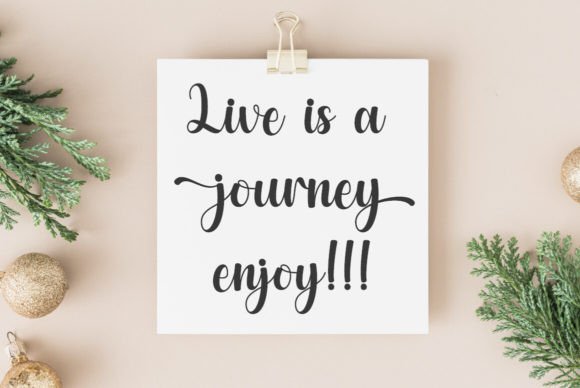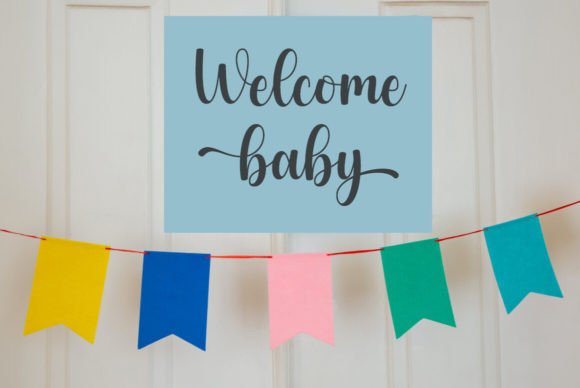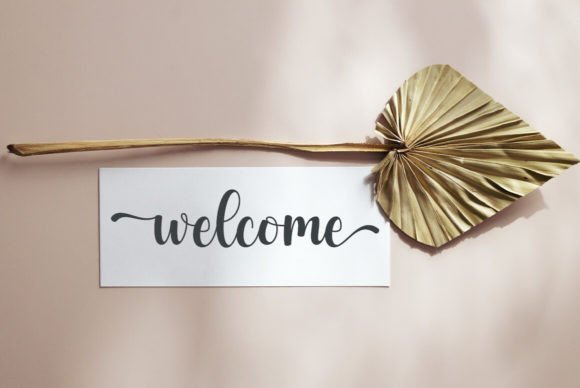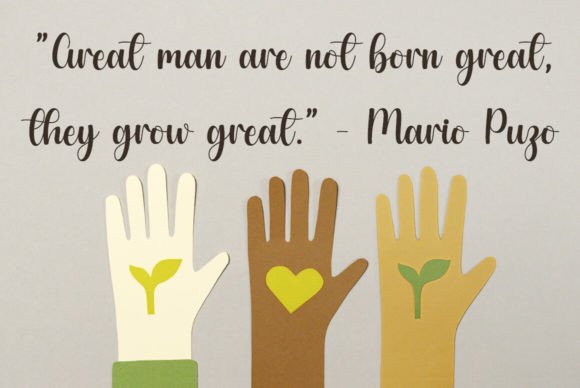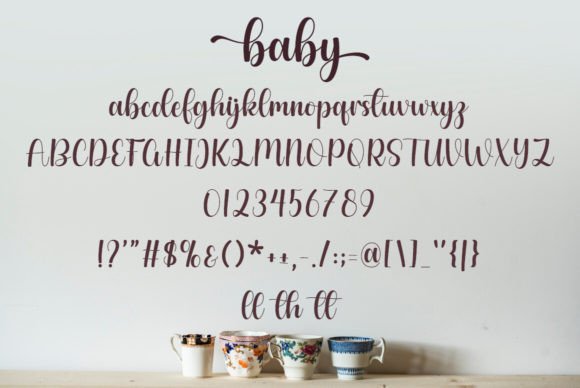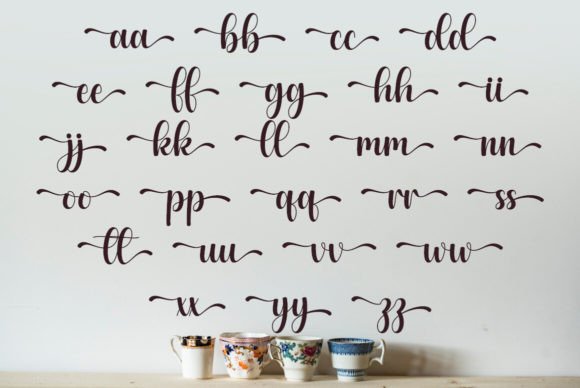
The Sweet Allure of Handwritten Typography
Have you ever been working on a design project, pouring your heart and soul into it, when suddenly the perfect font strikes your imagination? That’s exactly what happened to me when I stumbled upon the Baby Font. Its elegant and delicate handwritten style captured my attention, and I knew I had to learn more about it.
The Baby Font is a versatile typeface designed to bring a touch of warmth and personality to your designs. Perfect for logos, branding, social media posts, and even wedding invitations, this font is a valuable addition to any designer’s toolkit. With its PUA encoding, accessing all the glyphs and alternates is a breeze, making it a joy to work with.
Whether you’re a seasoned designer or just starting out, the Baby Font is sure to become a favorite. Its unique style and ease of use make it an ideal choice for a wide range of design projects.
Baby Font Key Features
- Unique Characteristics: Baby Font is designed to be playful and whimsical, featuring rounded shapes and soft lines. Its unique characteristics make it perfect for creating a child-friendly atmosphere in branding, advertising, and digital design.
Designer Review: Baby Font
Overall, I think Baby Font has some nice qualities, but it also has some limitations. Let’s dive in!
- The font’s playful and cursive nature is perfect for designing for young children or creating a fun, whimsical atmosphere.
- The font’s irregularities and imperfections add to its charm and make it feel more human.
- The font comes in a variety of styles and weights, making it easy to customize and adapt to different design projects.
- The font can be a bit too playful and cursive for more formal or professional designs.
- The irregularities and imperfections that make the font so charming can also make it difficult to read for some users.
- The font may not be suitable for body text, as it can be overwhelming and difficult to read in large blocks.
Overall, I think Baby Font is a fun and playful font that’s perfect for certain design projects, but it may not be the best choice for more formal or professional designs. With a little creativity and restraint, though, this font can be a great addition to any designer’s toolkit.
Tips for Getting the Most Out of Baby Font
Use Baby Font to create playful and whimsical designs, such as baby shower invitations, nursery decor, and children’s book illustrations.
Experiment with different font sizes and colors to add visual interest to your design.
Combine Baby Font with other design elements, such as images and graphics, to create a cohesive and engaging design.
Baby Font is commonly used in designs related to babies and children, such as:
Baby shower invitations and decor
Nursery wall art and decor
Children’s book illustrations and designs